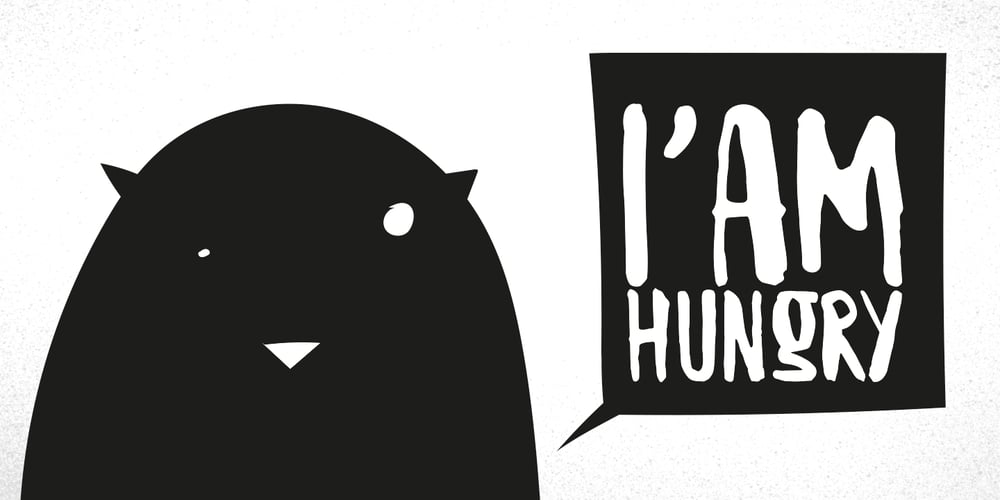
Brosha
Brosha font
Brosha Font Family was designed by Ewen Prigent and published by La Boîte Graphique. Brosha contains 1 styles and family package options. A hand made font ideal for your graphic project : packaging, posters, children’s books… and many other media !